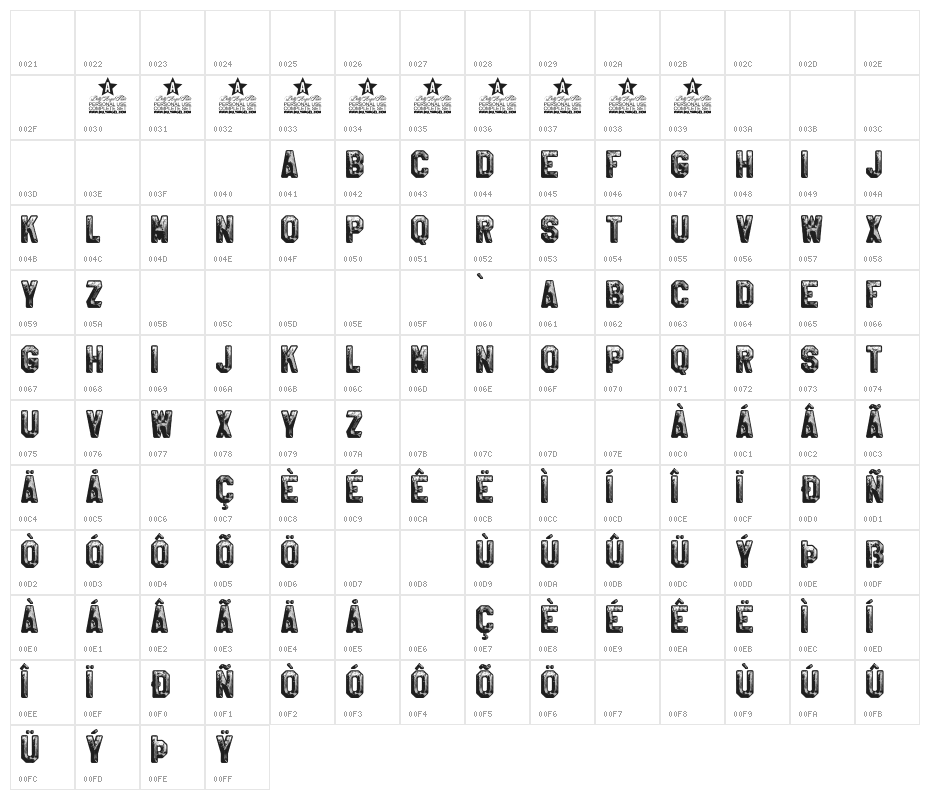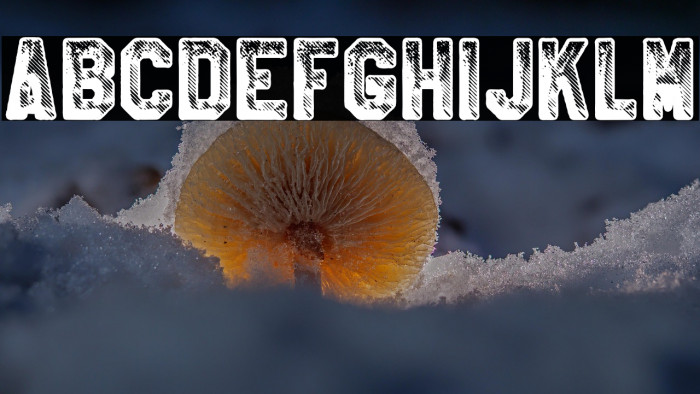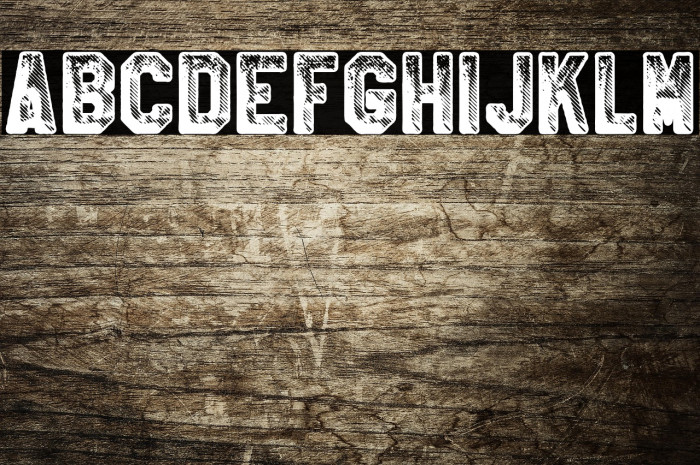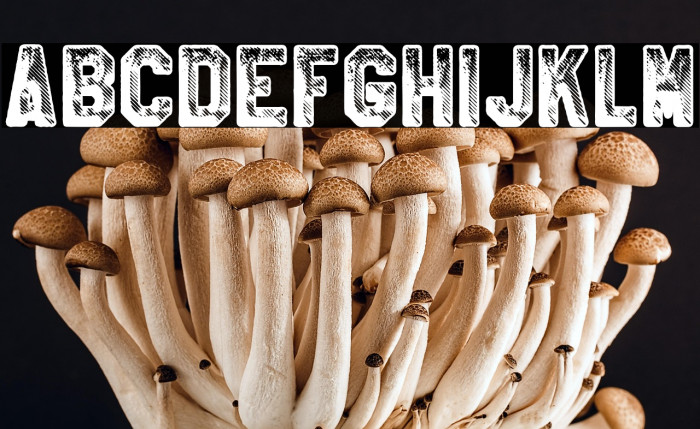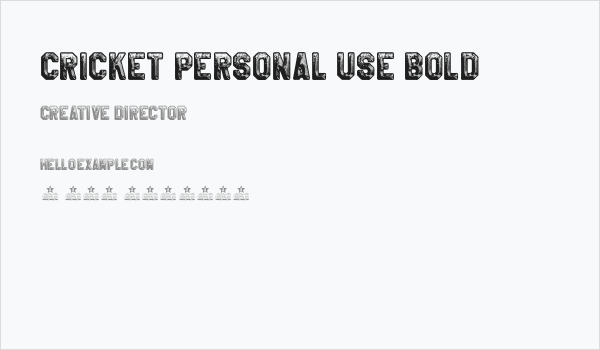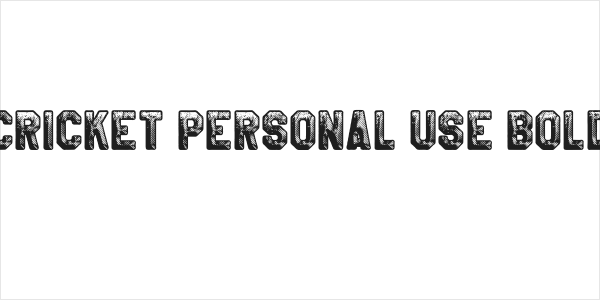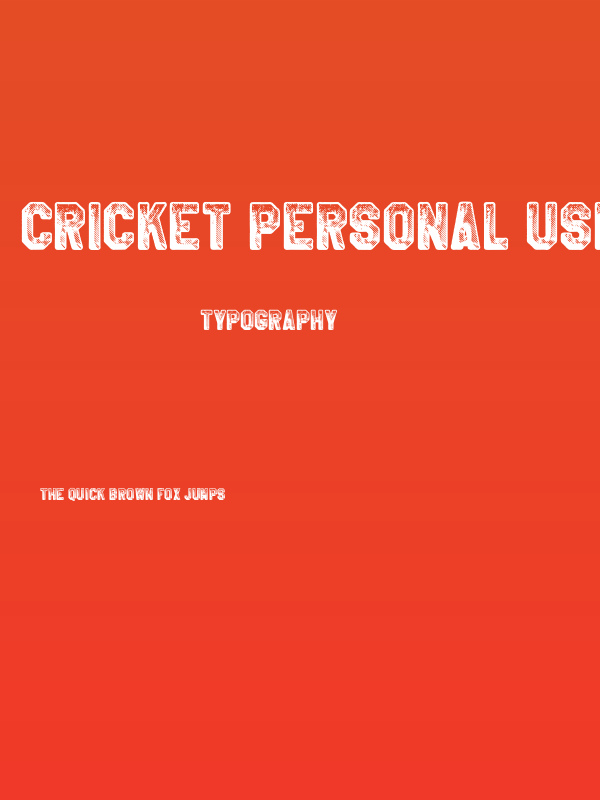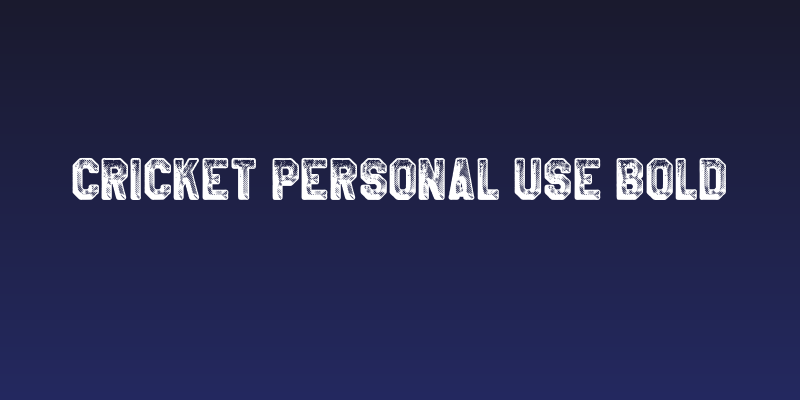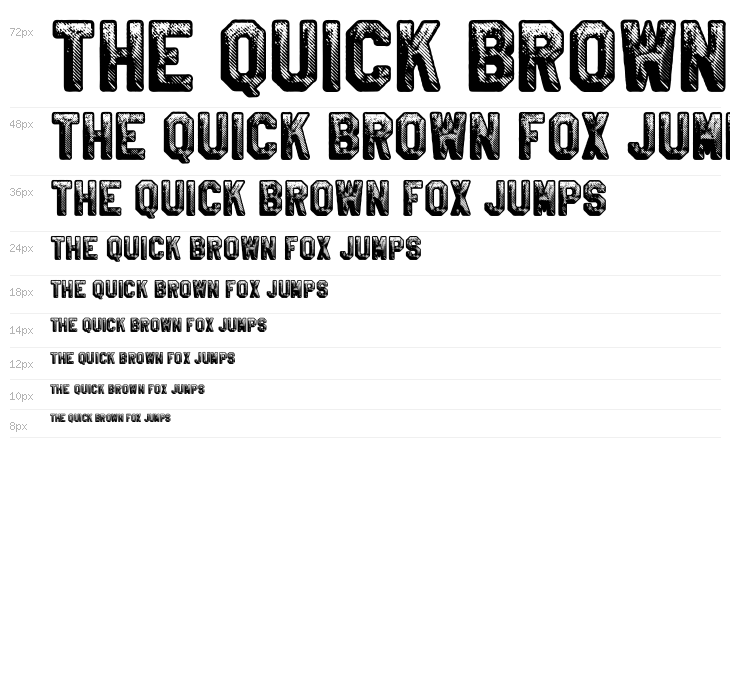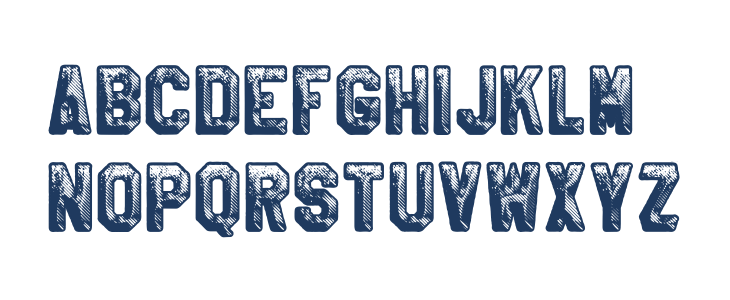
CRICKET PERSONAL USE Bold Font
CRICKET PERSONAL USE Bold Description
This font features a bold, textured style with a vintage aesthetic. Each character is designed with a distinct crosshatch pattern, giving it a hand-drawn appearance. The uppercase letters are prominent and impactful, making them ideal for attention-grabbing headlines. The font's boldness is complemented by a moderate contrast in stroke thickness, adding depth and dimension to the characters. The overall style is decorative and slightly rugged, suitable for projects that require a strong visual presence.
| Overall Style | Vintage, Decorative |
| Proposed Projects | Ideal for posters, logos, branding, and any design project that requires a bold, vintage look. |